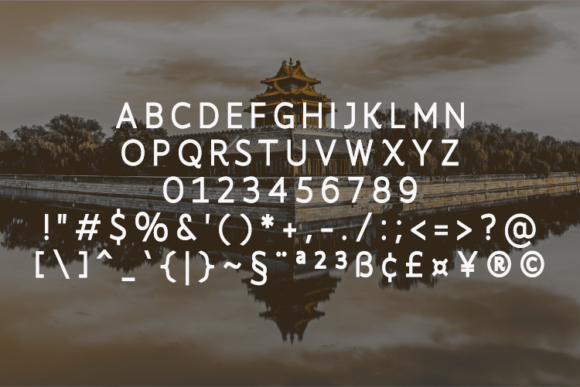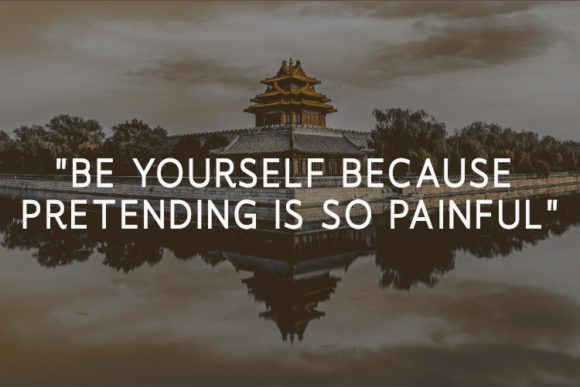
Introduction to Lenzto Font
Have you ever found yourself stuck in a creative rut, staring at a blank canvas with no idea where to start? You’re not alone. We’ve all been there, but sometimes all it takes is the right design resource to spark that elusive idea. For designers, a high-quality font can be the difference between a good project and a great one.
Enter the Lenzto Font, a simple yet striking sans serif font that’s quickly becoming a go-to choice for designers around the world. With its natural and unique style, Lenzto Font is incredibly versatile, making it the perfect fit for a wide range of creative projects.
Key Features of Lenzto Font
- The Lenzto Font is a high-quality design resource that offers a transparent background, making it ideal for creative projects that require a clean and minimalist aesthetic.
- The Lenzto Font comes in a range of sizes, from 12pt to 72pt, making it versatile for use in various design contexts, from small text to large headings.
- With a resolution of 300 DPI, the Lenzto Font is suitable for use in both digital and print media, ensuring that the design remains crisp and clear.
- This unique font features a modern and sleek design, making it perfect for creative projects that require a touch of sophistication and elegance.
- The Lenzto Font is also highly customizable, allowing designers to adjust the font size, color, and style to suit their specific design needs.
Honest Review: Lenzto Font
As a designer, I’m always on the lookout for high-quality design resources that can elevate my creative project. Recently, I stumbled upon the Lenzto Font, and I must say it’s been a game-changer.
Here’s what works well:
- ✨ The Lenzto Font is incredibly versatile and can be used for a wide range of design projects, from logos to typography.
- ✨ The font has a transparent background, which makes it easy to work with and allows for seamless integration with other design elements.
- ⚠️ The font is not as comprehensive as some other fonts I’ve used in the past, which can limit its use in certain design projects.
- ⚠️ The font doesn’t come with as many style variations as I would have liked, which can make it feel a bit limited in terms of creative possibilities.
Overall, I’m impressed with the Lenzto Font and would definitely recommend it to fellow designers. While it may have some limitations, its versatility and high quality make it a valuable addition to any design resource library.
Tips for Getting the Most Out of Lenzto Font
Use the Lenzto Font in combination with other design elements, such as images and graphics, to create a visually appealing design. Experiment with different font sizes, colors, and styles to get the most out of the Lenzto Font.
The Lenzto Font is ideal for a wide range of creative projects, including social media graphics, presentations, reports, and documents. Its high-quality design and transparent background feature make it a popular choice among designers and creatives.